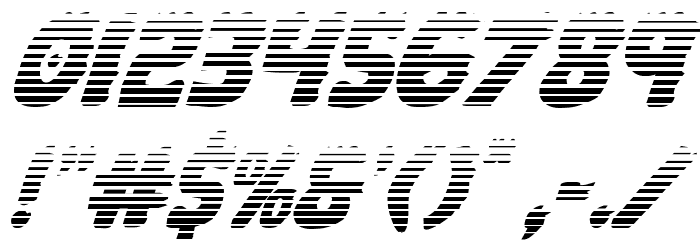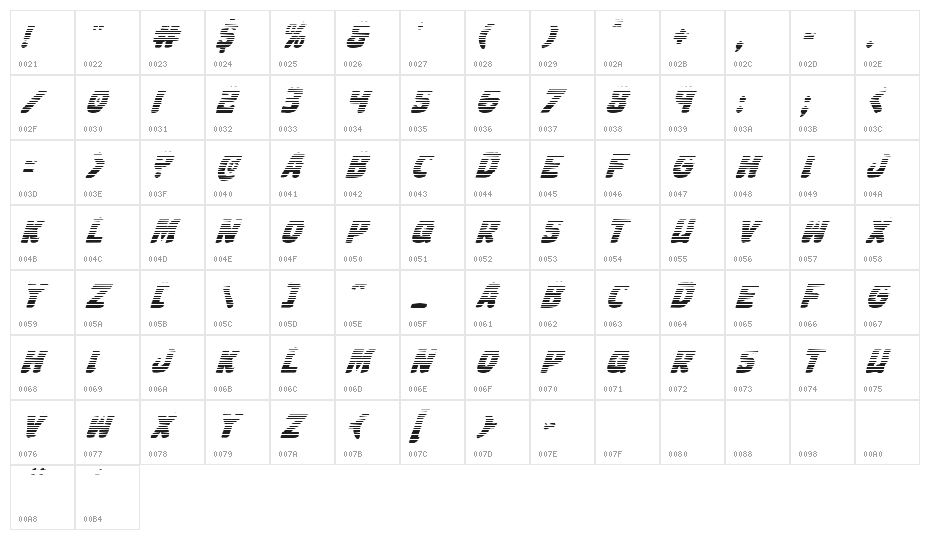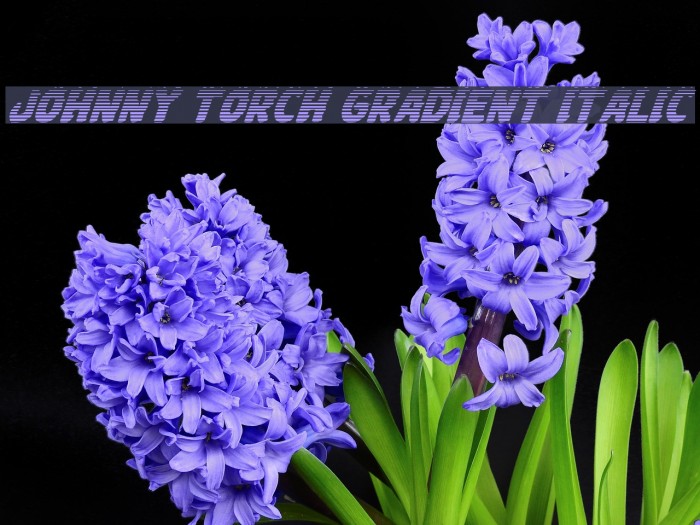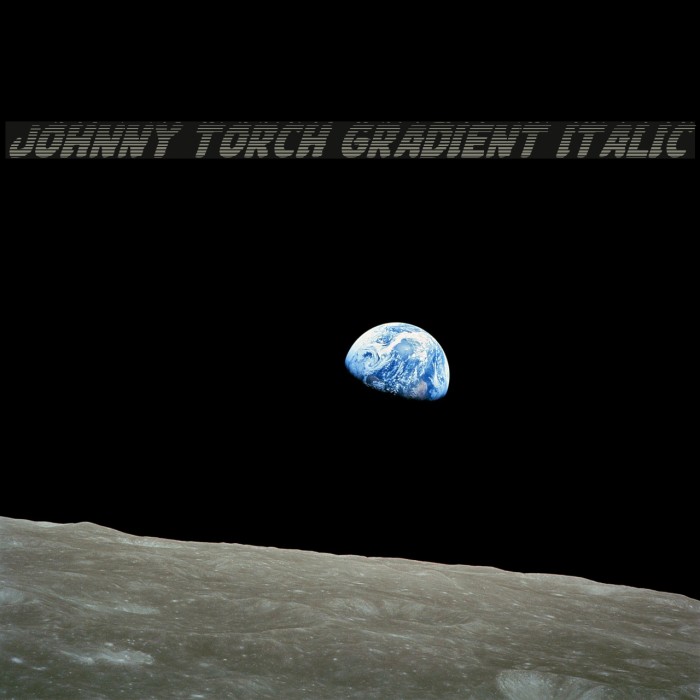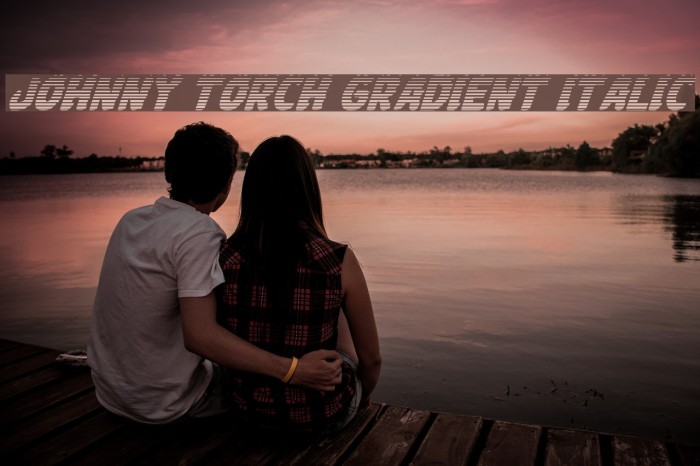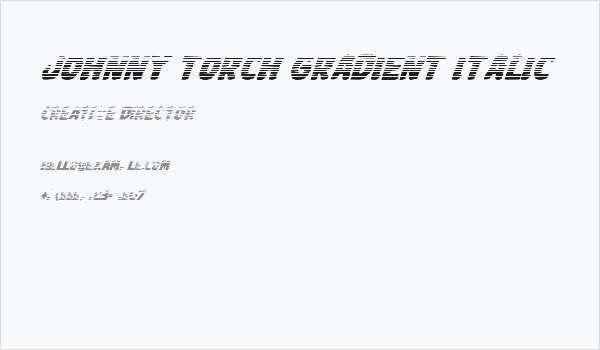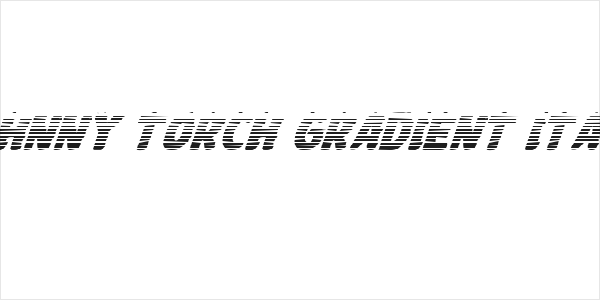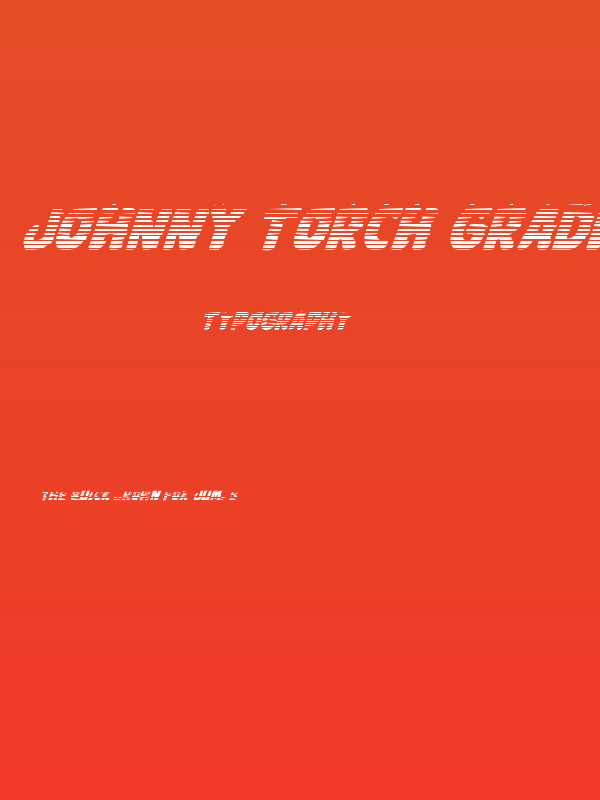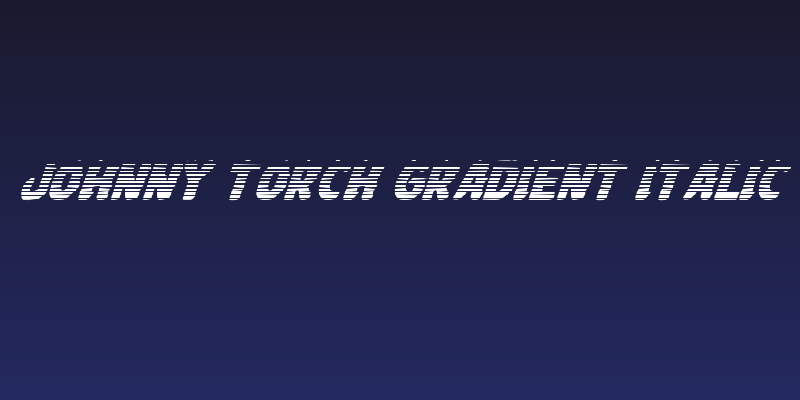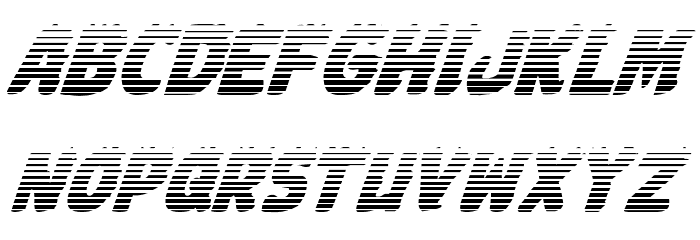
Johnny Torch Gradient Italic Font
Johnny Torch Gradient Italic Description
This font features a bold, italicized style with a unique gradient effect created by horizontal lines that give it a dynamic, modern look. The characters are slanted, adding a sense of motion and energy. The uppercase and lowercase letters maintain a consistent design, with rounded edges and a slightly condensed width. Numbers and special characters are designed to match the overall aesthetic, making it suitable for eye-catching designs. The gradient effect adds depth and dimension, making it stand out in various applications.
| Proposed Projects | Ideal for sports branding, dynamic posters, futuristic designs, and digital media. |